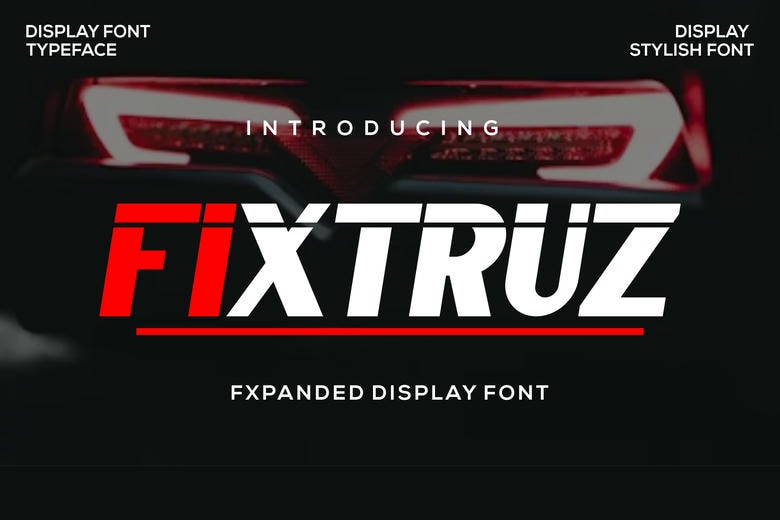
Fixtruz Font
Fixtruz is a bold and stylish expanded display sans-serif font. Veruno is a design with sharp lines and elegant curves that work great when you are producing captivating titles, branding, posters, logo designs, editorial designs, and contemporary packaging.
Fixtruz Display Font